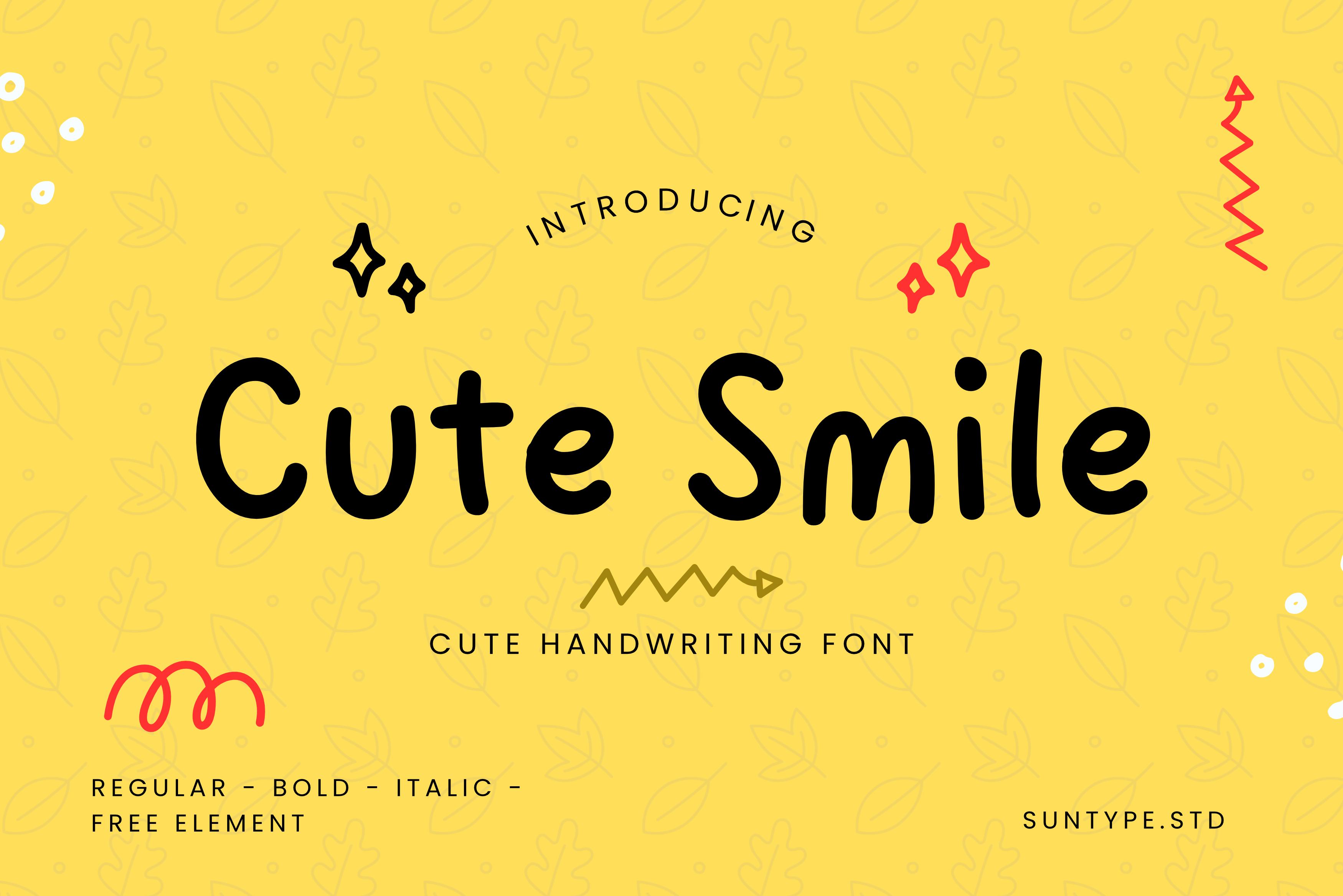
Cute Smile Handwriting Font
With its endearing design, our fonts are like a breath of fresh air in a digital world, inviting users to engage with your content in a joyful and welcoming manner. Whether you're designing a children's book, crafting invitations for a whimsical event, or adding a touch of cuteness to your branding, our fonts are the perfect choice.